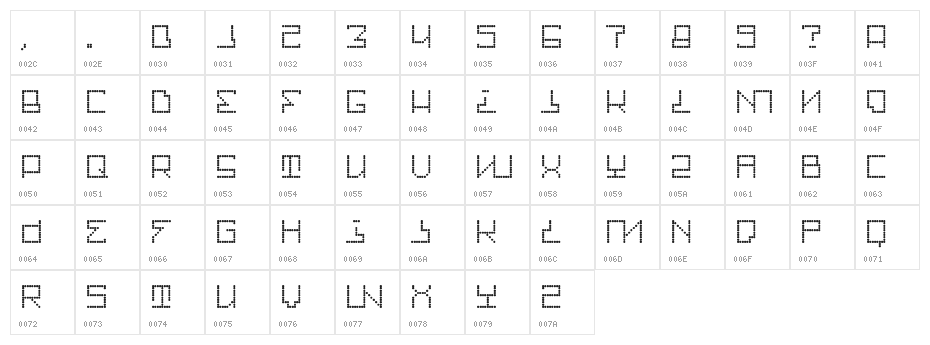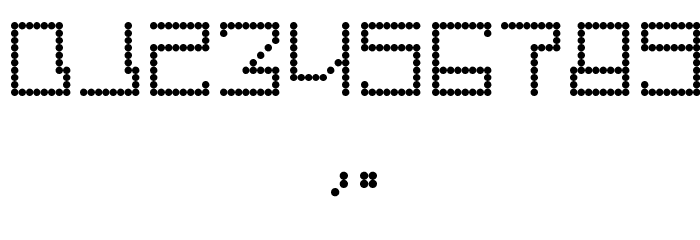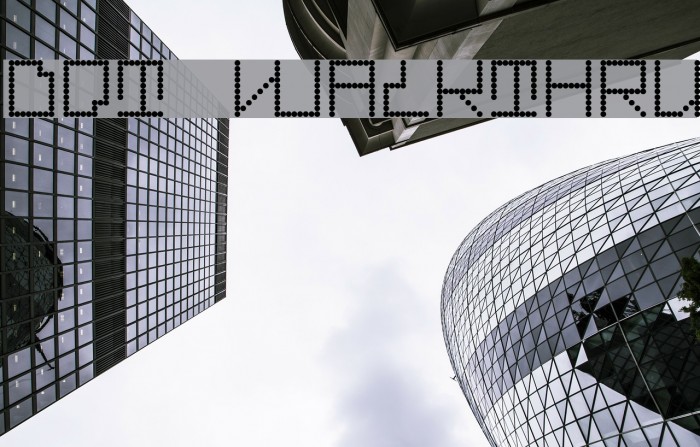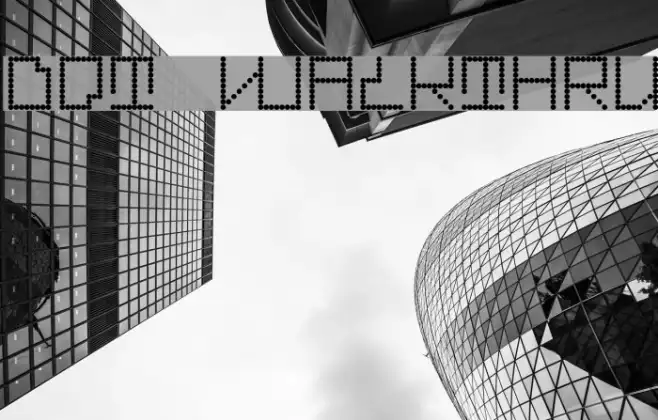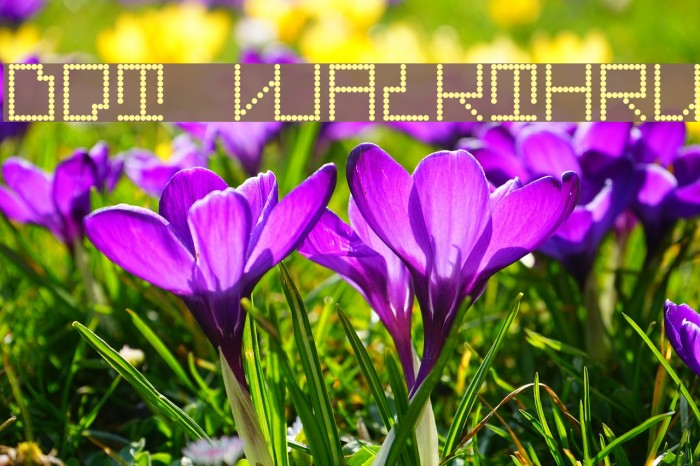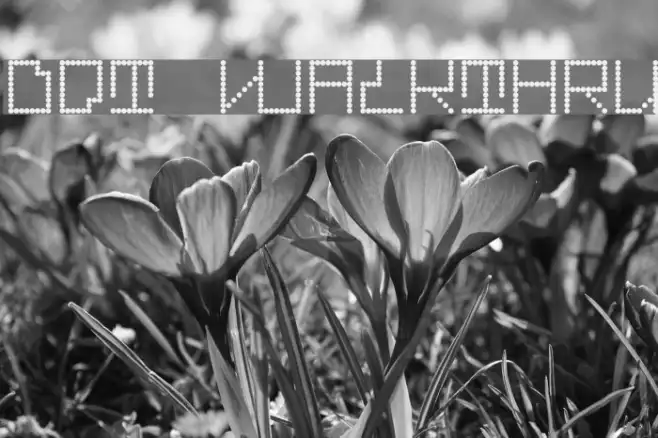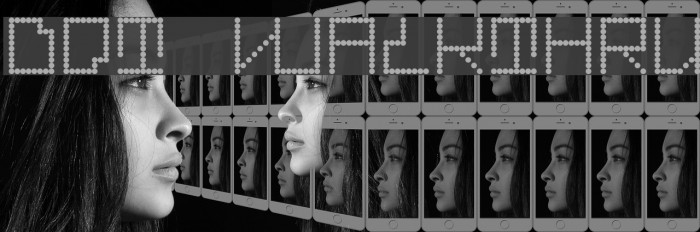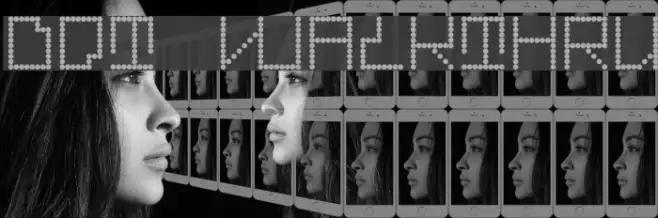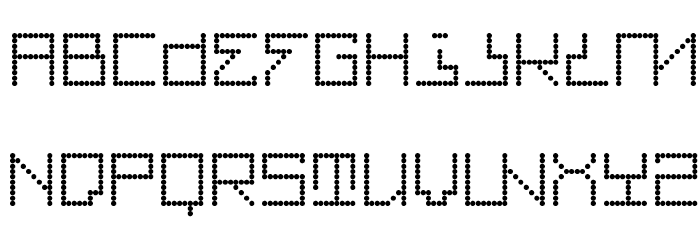
Dot Walkthru Font
Dot Walkthru Description
This font features a unique dot matrix style, where each character is composed of small, evenly spaced dots. The design is geometric and structured, creating a digital or retro-tech aesthetic. The uppercase and lowercase letters maintain consistent height and width, giving a uniform appearance. Numbers and special characters follow the same dot pattern, ensuring visual coherence across all symbols. This font's distinct style makes it stand out, offering a blend of modern digital flair with a nod to vintage computing displays.
| Use Case | Logos, Headlines, Digital displays |
| Proposed Projects | Ideal for digital displays, tech-themed designs, retro gaming graphics, and futuristic branding projects. |